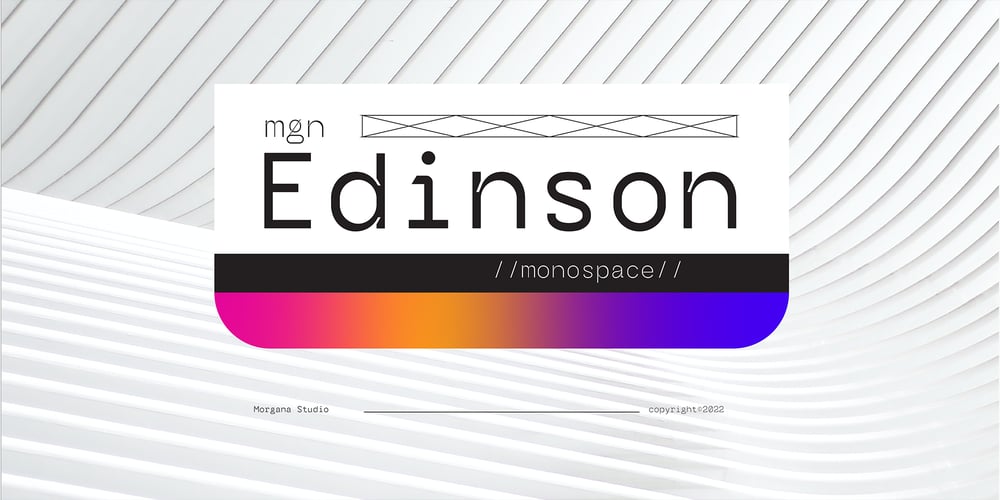
MGN Edinson Monospace Font Family was designed by Muhamad Masyhuri, Fattah Setiawan and published by Morgana Studio. MGN Edinson Monospace contains 4 styles and family package options. MGN Edinson is a modern typeface that is both stylish and versatile. This font is perfect for creating a sleek and contemporary design that will appeal to today’s audiences. It has a minimalist design that is clean and easy to read, making it an ideal choice for modern digital applications. MGN Edinson is a monospace font that features a consistent width for each character, giving it a uniform look that adds to its modern aesthetic.Our new product, a cutting-edge mobile app, uses MGN Edinson font to give it a modern and professional look. The app features a sleek and intuitive design with a focus on user experience. The modern type of MGN Edinson font adds to the overall design of the app, creating a seamless and cohesive user interface. The monospace font is particularly useful for displaying data and statistics in a clear and organized way. The use of MGN Edinson font adds a touch of sophistication to the product, making it the perfect choice for users who demand high-quality design and functionality.